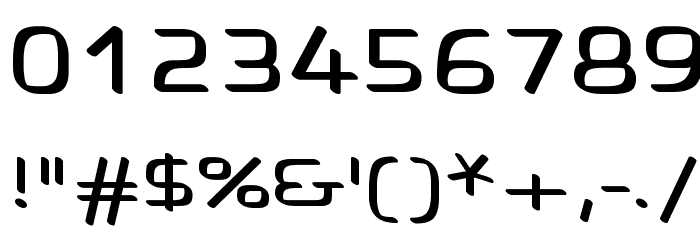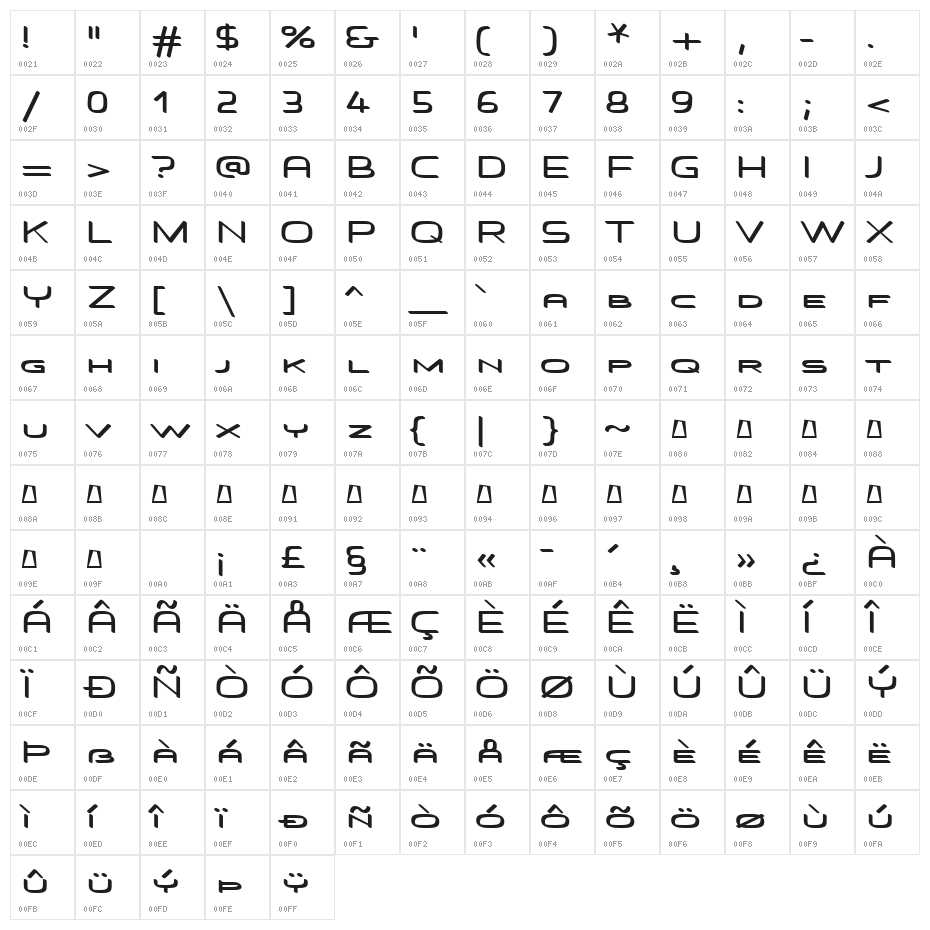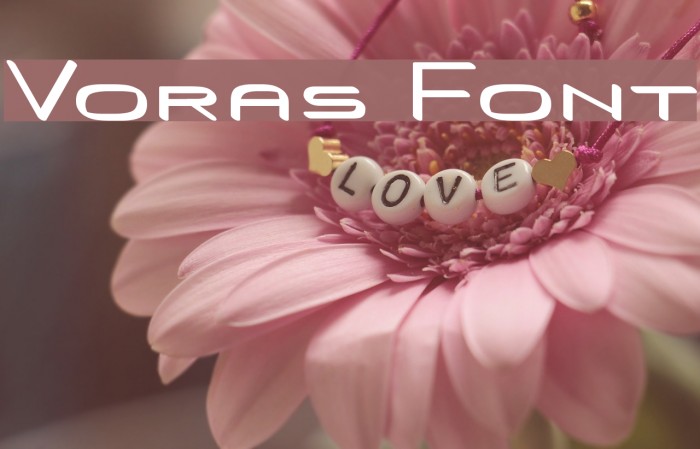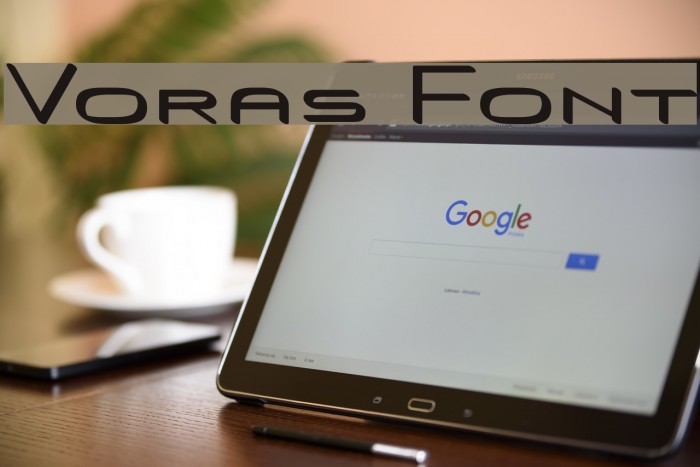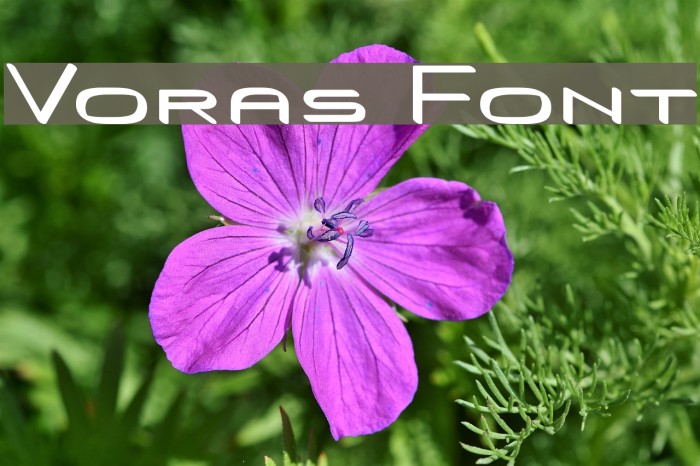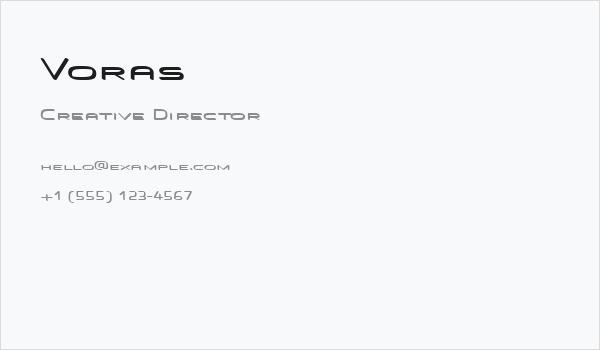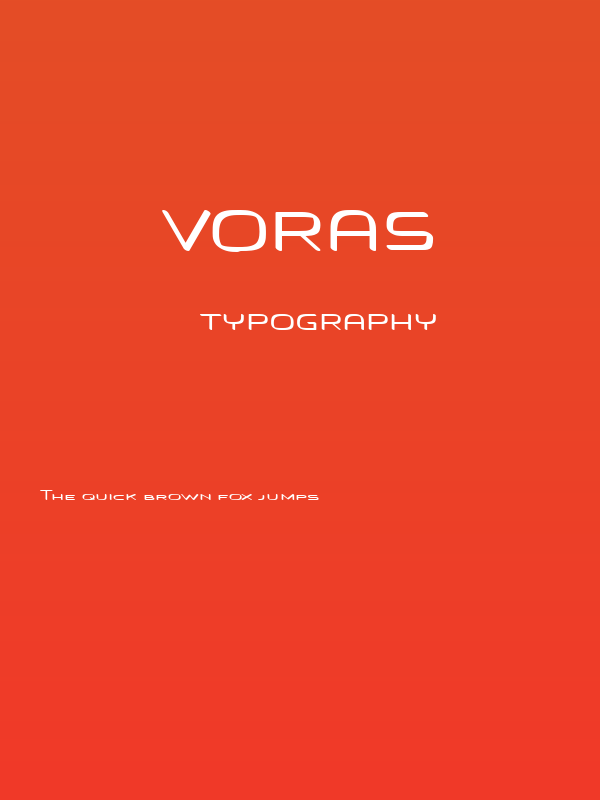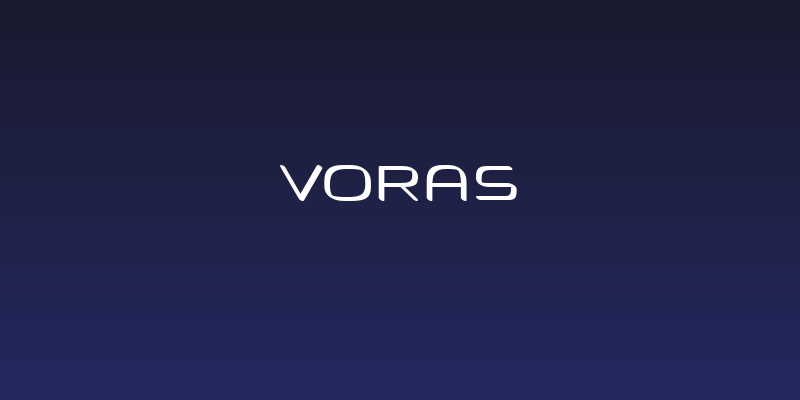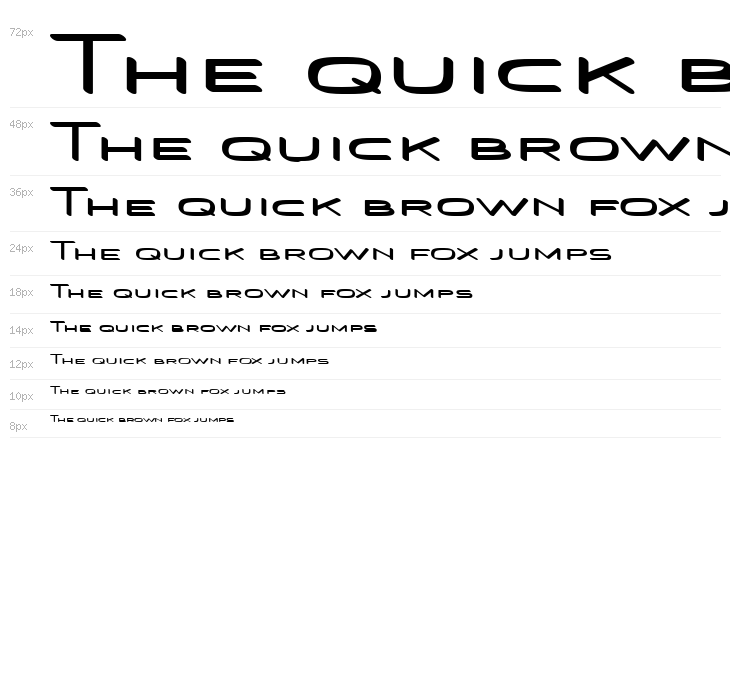
Voras Font
Voras Description
This font features a sleek, modern design with a futuristic flair. The characters are slightly rounded with a geometric structure, giving it a clean and sophisticated appearance. The uppercase letters are uniform in height, while the lowercase letters maintain a consistent baseline, enhancing readability. The numerals are distinct and well-proportioned, matching the overall aesthetic. Special characters are crafted with the same attention to detail, ensuring versatility across various applications. The font's design is both functional and stylish, making it suitable for a wide range of digital and print media.
| Use Case | Headlines, Logos, Digital Interfaces |
| Proposed Projects | Ideal for tech branding, digital interfaces, futuristic posters, and modern advertising campaigns. |